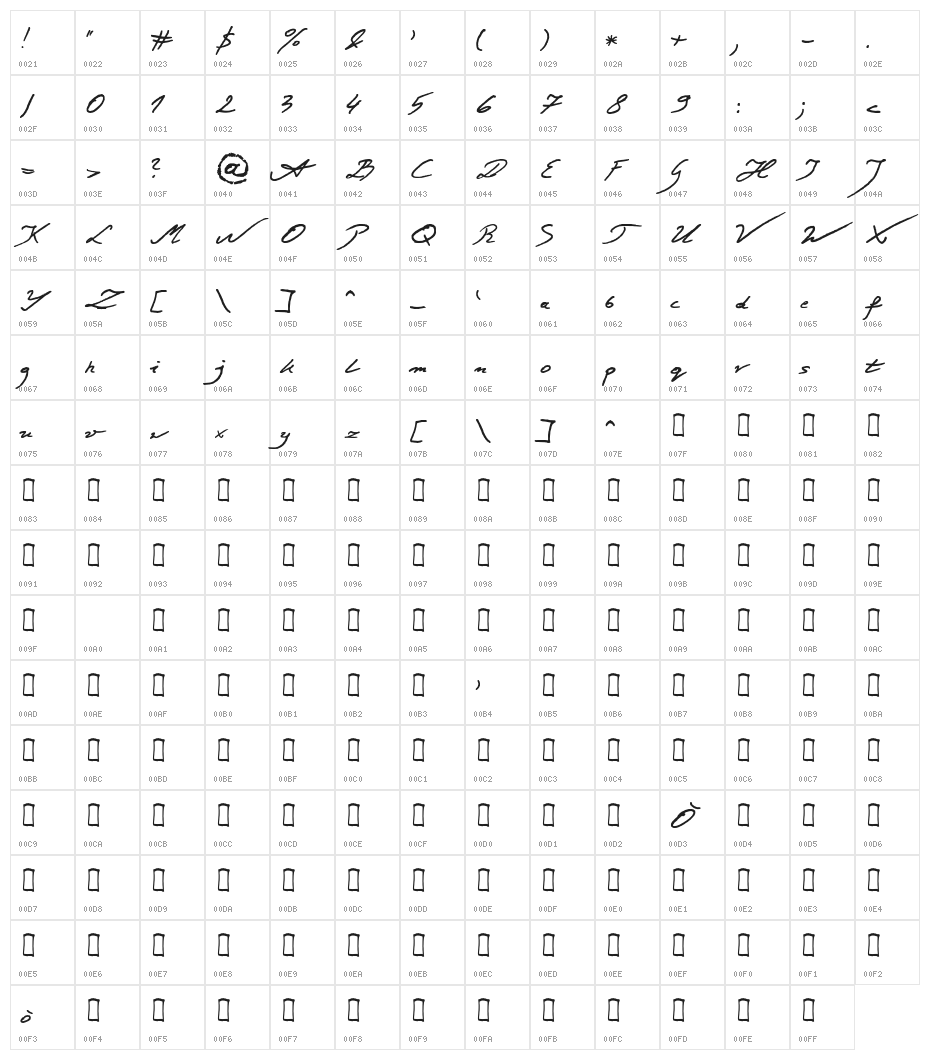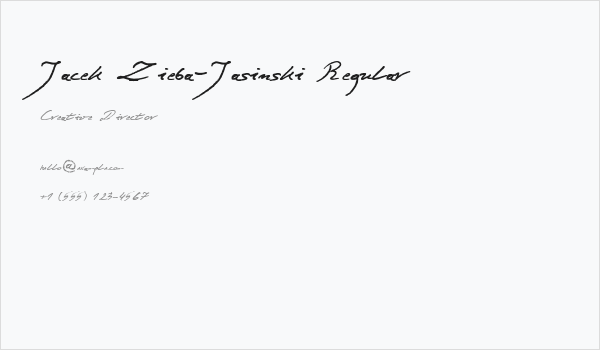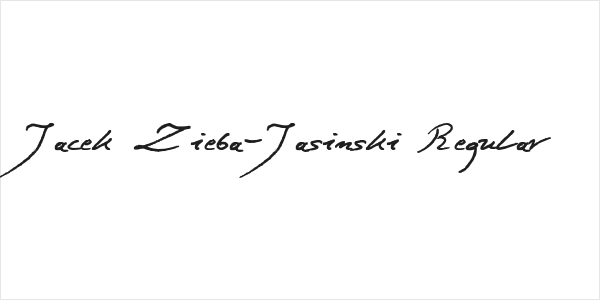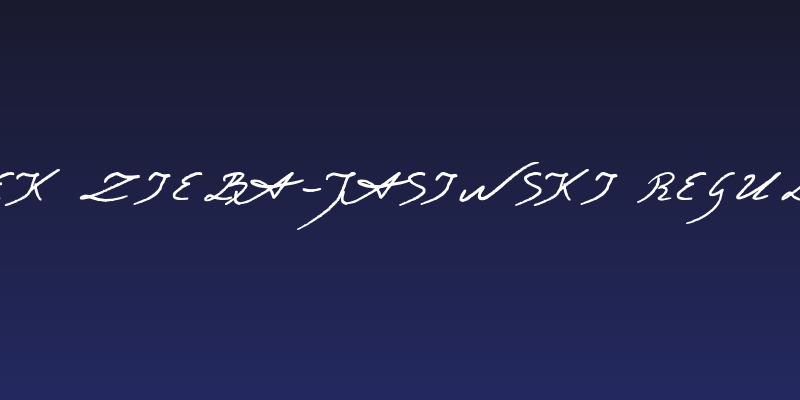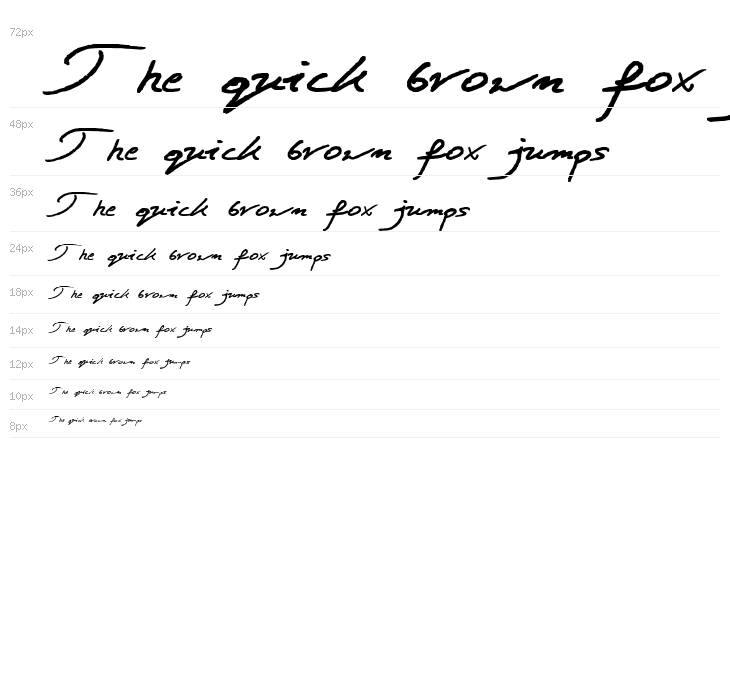
Jacek Zieba-Jasinski Regular Font
Jacek Zieba-Jasinski Regular Description
This font exudes a handwritten, cursive style that mimics the fluidity and elegance of traditional calligraphy. The strokes are dynamic and expressive, with a natural flow that suggests a personal touch. Each character is distinct yet harmonious, maintaining a consistent slant and stroke weight throughout. The uppercase letters are slightly more elaborate, while the lowercase letters are more subdued, providing a balanced contrast. The numerals and special characters are crafted with the same attention to detail, ensuring readability and aesthetic appeal. This font is ideal for projects that require a personal, artistic touch, such as invitations, greeting cards, and creative branding.